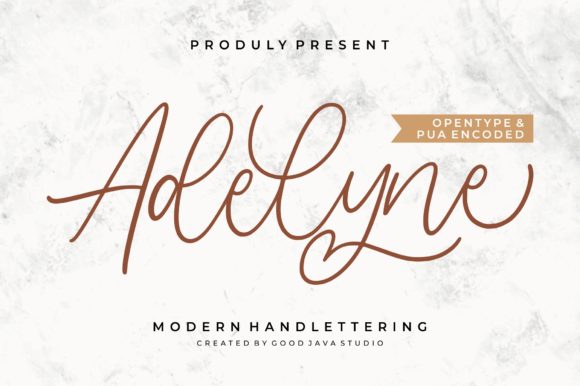
Introducing Adelyne Font, the epitome of elegance and charm in the world of digital creations. This remarkable script font encapsulates the essence of sophistication and grace, seamlessly blending classic calligraphy with a modern twist. Adelyne is more than just a font; it's an artistic masterpiece that breathes life into your creative projects, transforming plain words into stunning visual masterpieces.
Crafted with the utmost care and attention to detail, Adelyne Font possesses an inherent versatility that caters to a vast spectrum of design endeavors. Whether you're a seasoned graphic designer or a budding enthusiast, the boundless possibilities of Adelyne will unleash your imagination and inspire you to create captivating designs that transcend the ordinary.
Imagine crafting elegant wedding invitations, menu cards that awaken the senses, and social media posts that captivate your audience with their finesse. Adelyne Font graces logos, branding materials, and website designs with an aura of sophistication, leaving an indelible impression on all who behold it.
With Adelyne Font as your creative companion, you'll embark on a journey of artistic expression, transforming mere words into works of art. Its timeless aesthetic transcends fleeting trends, ensuring that your creations remain captivating and relevant for years to come.
Don't let mediocrity hold you back. Embrace the transformative power of Adelyne Font and unlock a world of boundless creativity. Elevate your designs to new heights, leaving a lasting impression wherever your words may wander.